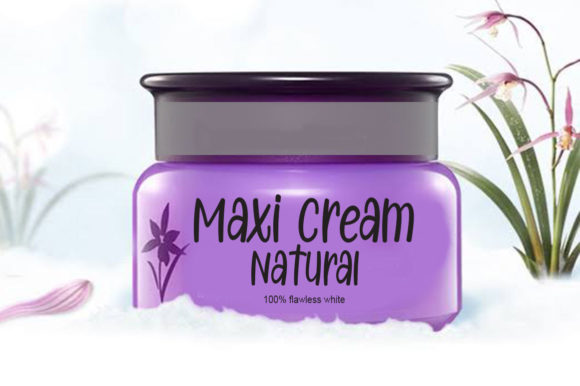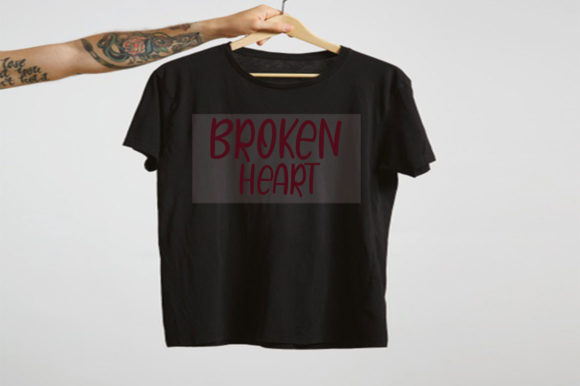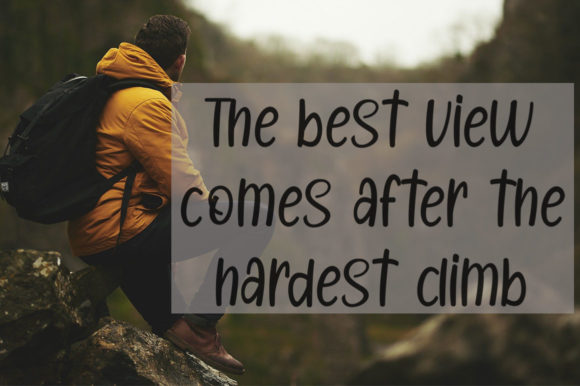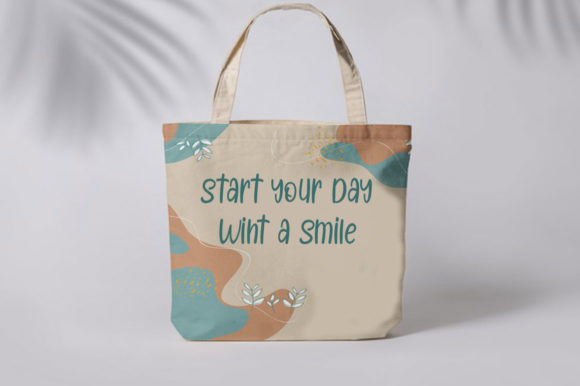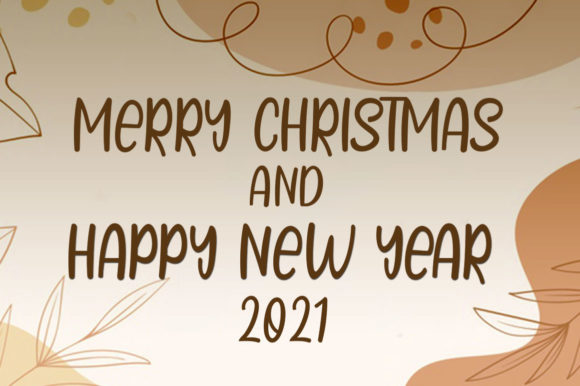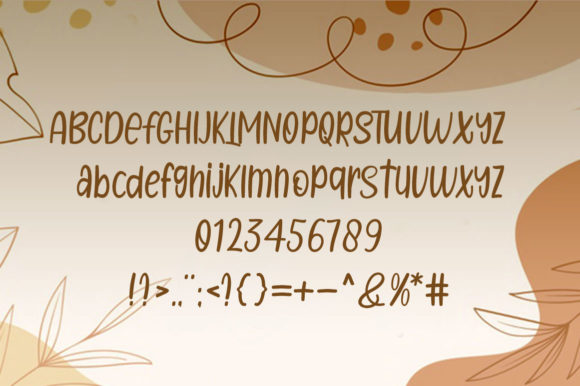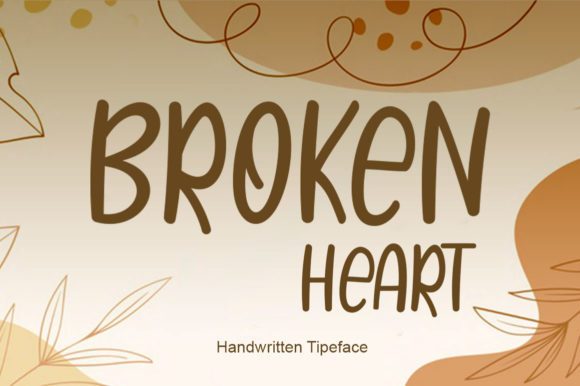
The Broken Heart Font: A Friendly and Informal Handwritten Delight
I’ll never forget the time I was working on a project for a client’s wedding invitation. I had the design almost finalized, but something was missing – the perfect font. I scrolled through my font library, but nothing seemed quite right. That’s when I stumbled upon the Broken Heart font. Its charming, handwritten style immediately caught my attention, and I knew I had found the one. In this article, I’ll share my experience with the Broken Heart font, its features, and how to make the most of it in your designs.
Here’s what I love about the Broken Heart font:
- ✨ Authentic, handwritten look and feel
- ✅ Perfect for chalkboard quotes, teaching materials, and informal designs
- 💕 Friendly and approachable vibe
- 🎨 Highly versatile and easy to pair with other fonts
While the Broken Heart font is amazing, it’s not without its quirks:
- 🤔 Some letters may appear a bit inconsistent in size or spacing, which can add to its handmade charm but might not be suitable for very formal designs
- ⚠️ Limited availability of special characters or extensive language support
- Experiment with OpenType features, such as stylistic alternates, to add variation to your text
The Story Behind Broken Heart Font
The Broken Heart font was designed with the intention of creating a friendly, approachable, and authentic handwritten font. The designer aimed to capture the imperfections and charm of handwritten text, making it perfect for informal designs and creative projects. The font’s unique character and personality have made it a favorite among designers and crafters.
| Font Name | Broken Heart Font |
| Author | samshidarstudio |
| What is the Broken Heart font best used for? | The Broken Heart font is perfect for informal designs, chalkboard quotes, teaching materials, and creative projects. |
| Is the Broken Heart font suitable for formal designs? | While the Broken Heart font can be used for formal designs, its informal and handmade feel might not be the best fit. It’s recommended to use it for creative and informal projects. |